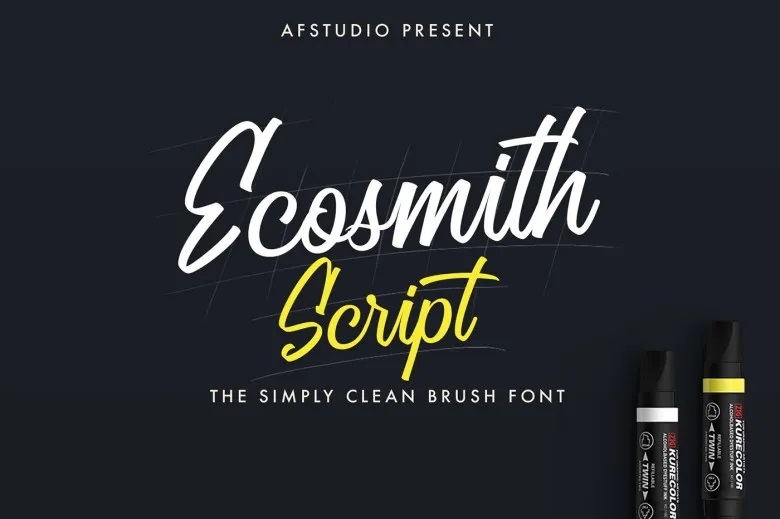
Ecosmith Script Font
Ecosmith is again a font that was done by the highly ranked graphic artist, Adam Fathony and the font is available for sale at Creativemarket and although it is a paid font, you will not need to part with any cash so that you can use it since, hey, you can download it for free at the moment. Modern Script is a smooth and a calligraphic font containing modern style jobs and their polished look.
Modern Script was drawn using a 45o brush just for balance of the strokes. Some characters have elements at descender, ascender and Uppercase zones — for logotype, poster, Lettering, Digital Lettering Arts | Clean design, Branding, Designs, Sign etc.